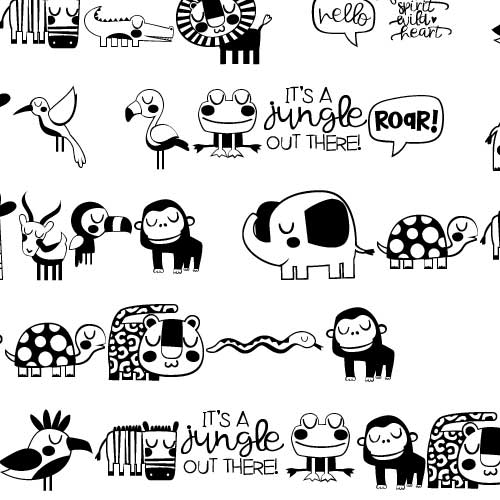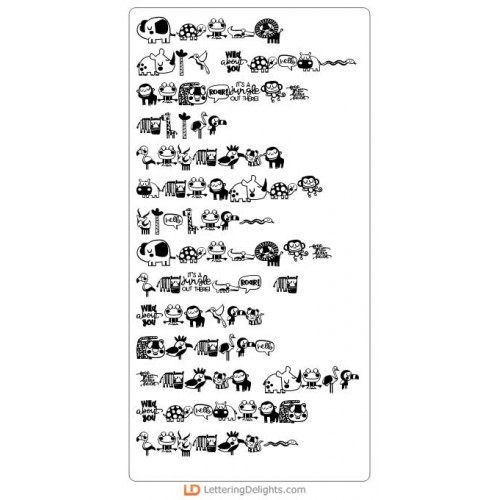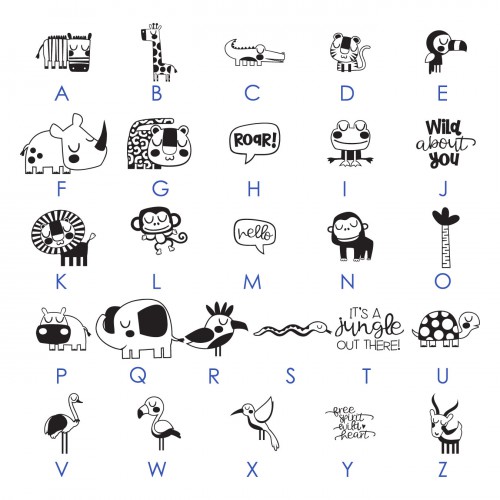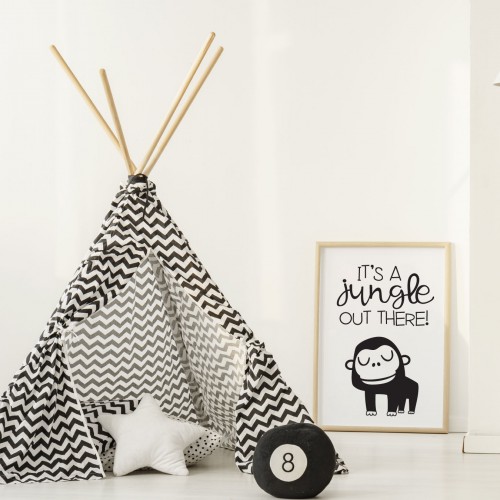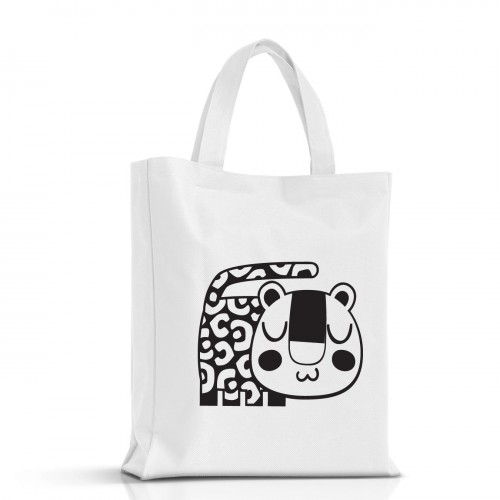
DB Wild Safari - DB
This adorable doodlebat font features whimsical safari animals perfect for cards, crafts, gifts, decor, planner stickers, scrap book pages, parties and more!